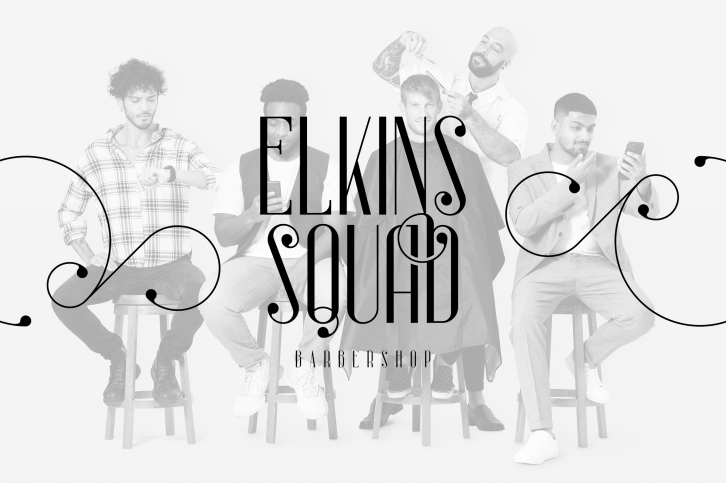
Introducing Sorcha Display font + Swashes
Sorcha is bold, vintage font loaded with ligature glyphs, alternates, swashes and multilingual support to enchant your next project. Very versatile fonts that works great in large and small sizes.
Sorcha is perfect for branding projects, home-ware designs, product packaging, magazine headers - or simply as a stylish text overlay to any background image.